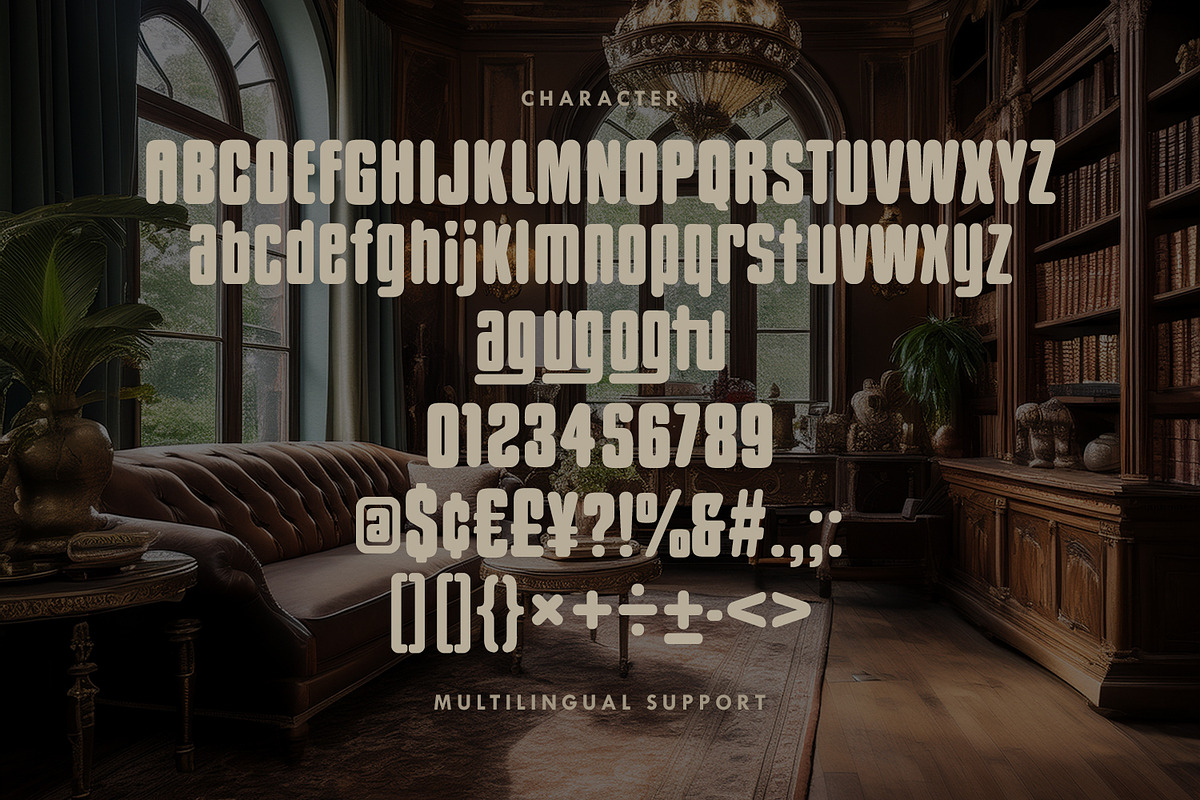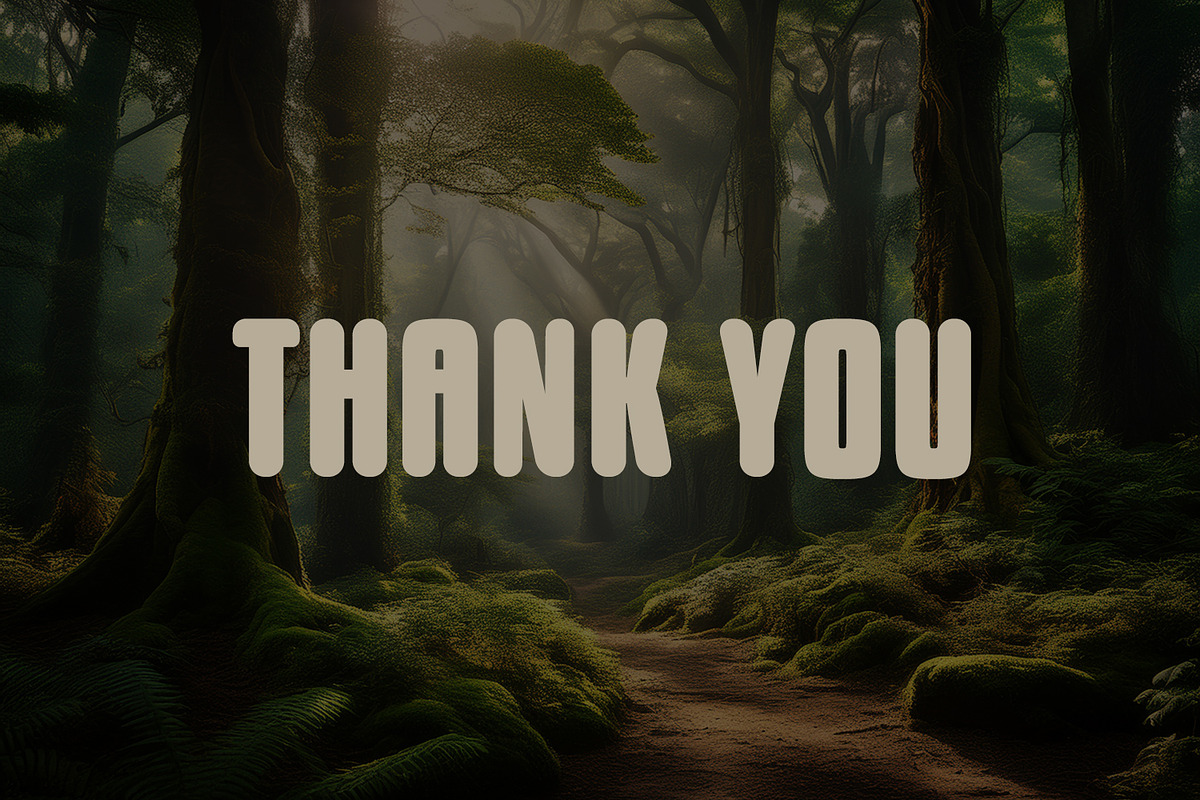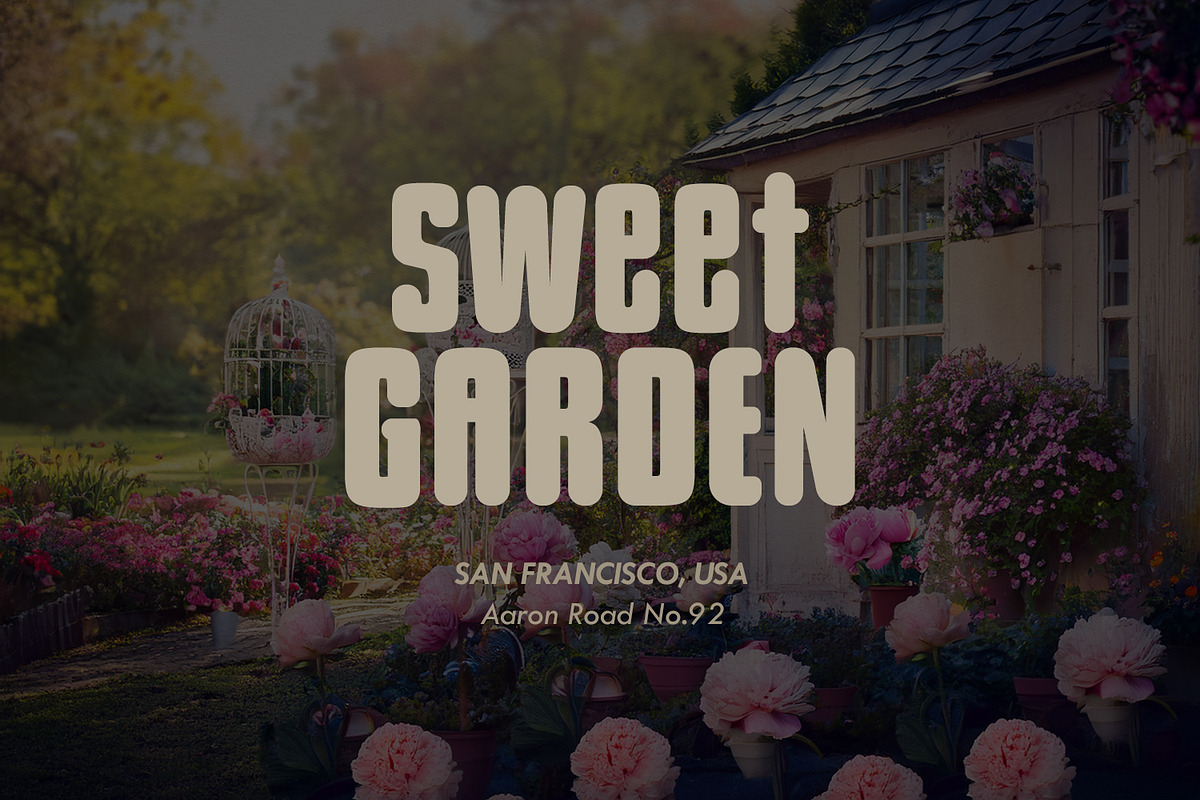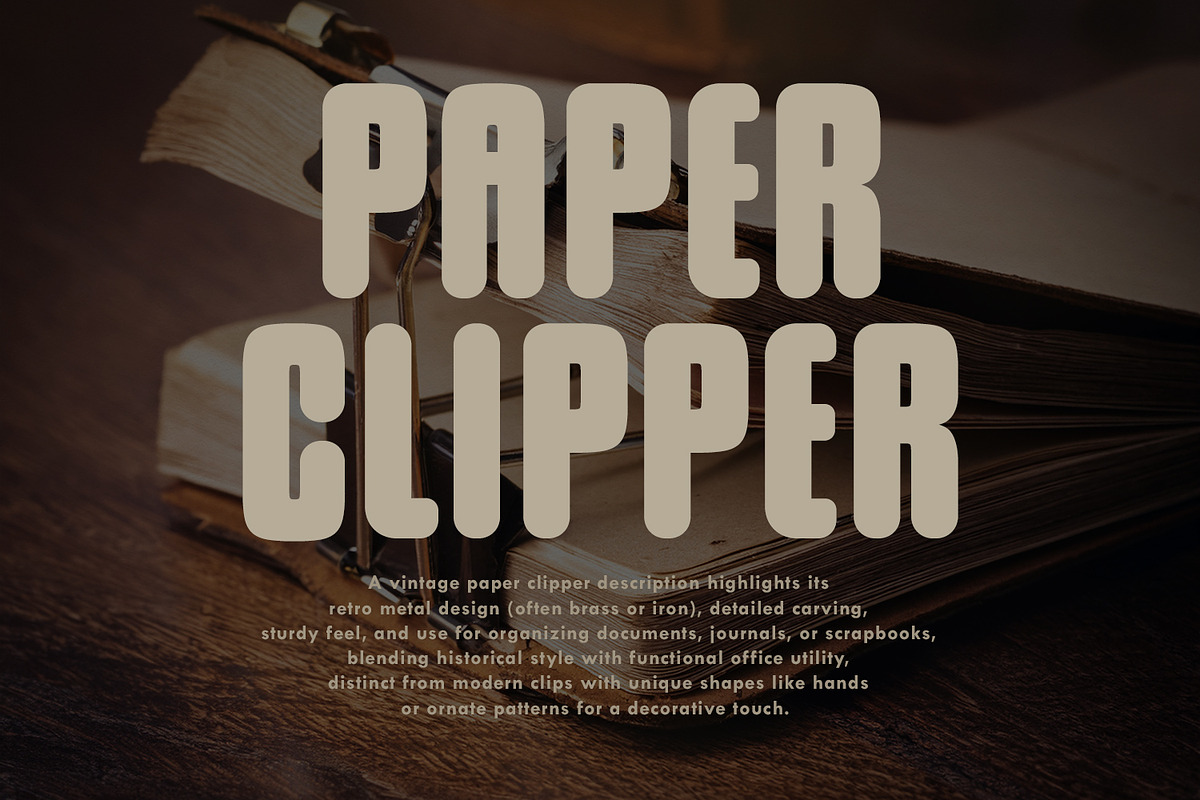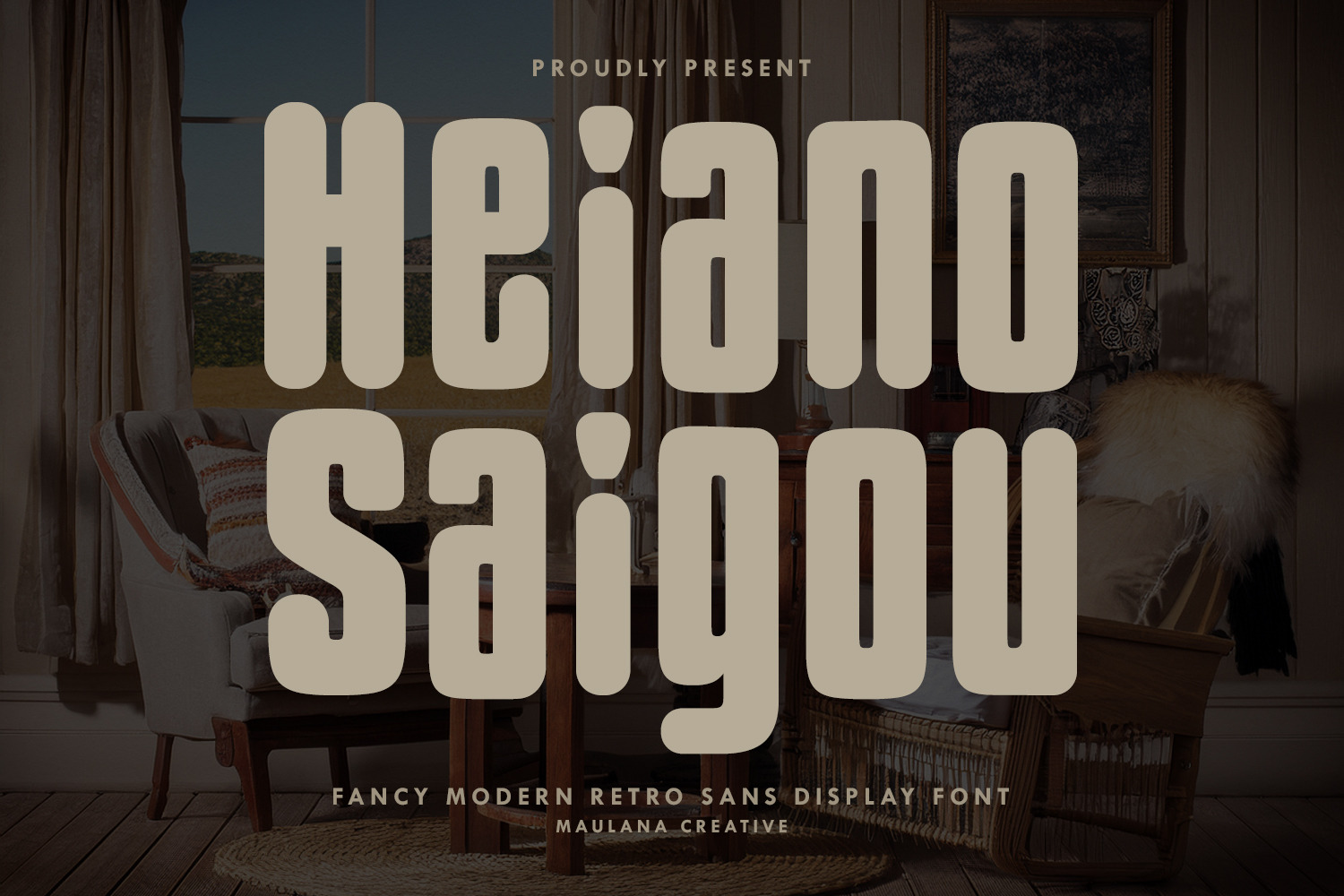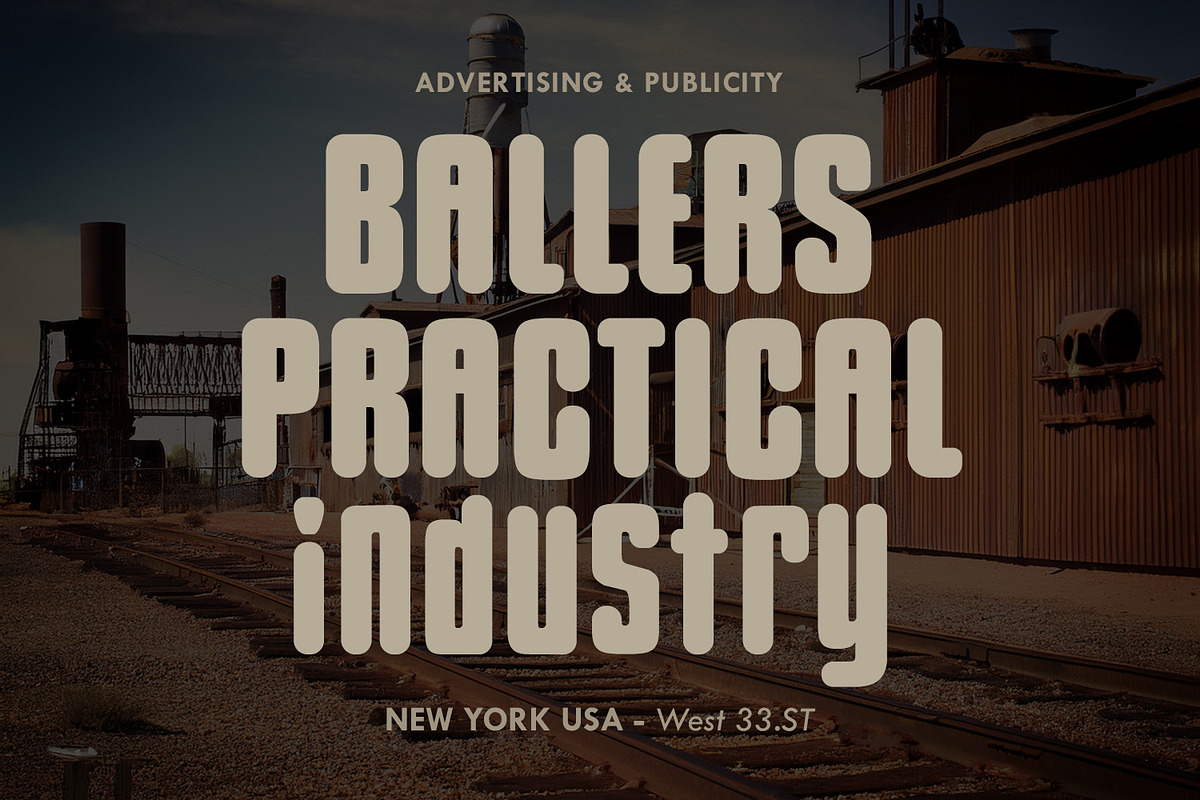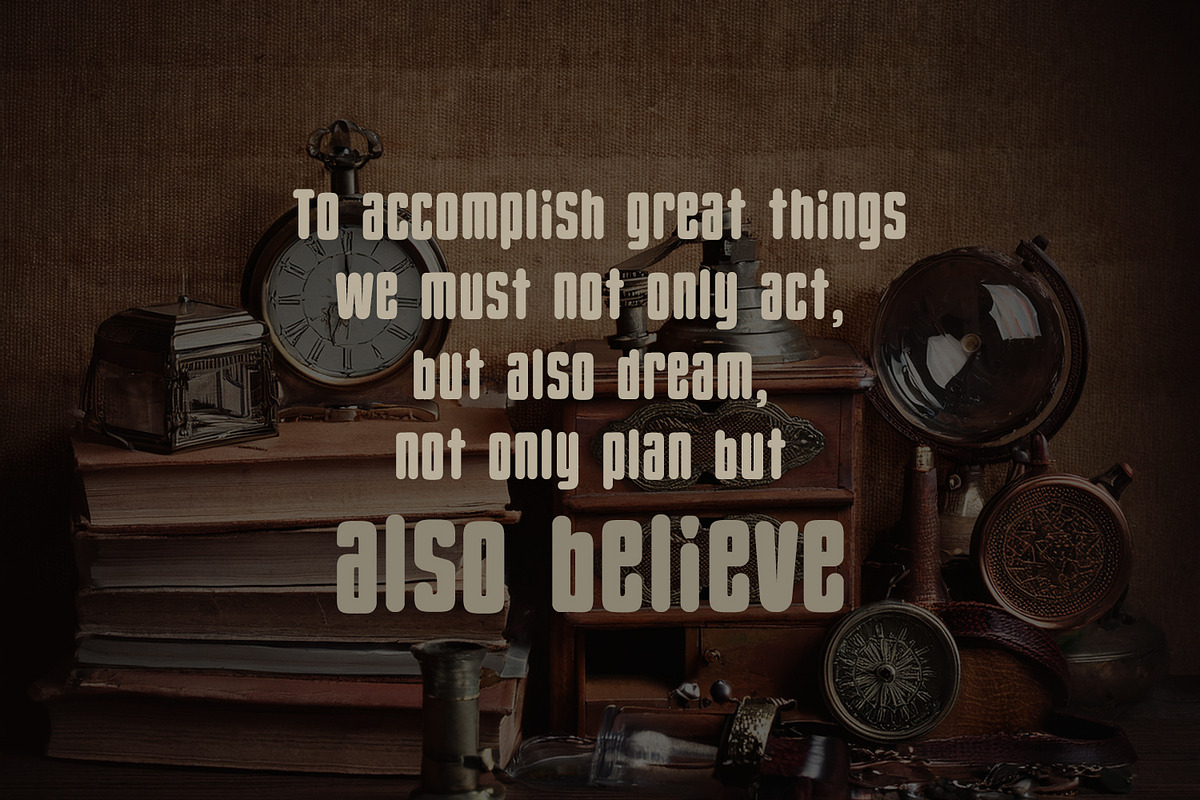
Heiano Saigou Modern Retro Sans Font
Elevate your designs with a touch of nostalgic sophistication!
Heiano Saigou is a fancy modern-retro sans display font that perfectly bridges the gap between classic vintage aesthetics and contemporary clean lines. Featuring a bold, condensed structure with smooth rounded corners, this font is designed to make a powerful statement while maintaining a friendly and approachable vibe.
Whether you are working on industrial branding, chic editorial layouts, or vibrant social media graphics, Heiano Saigou provides the versatility you need. Its unique character shapes—especially in the lowercase descenders—add a custom, hand-lettered feel to any project.
Perfect for: Logos, headlines, vintage posters, product packaging, t-shirt designs, cafe menus, signage, and any project that requires a bold, "modern-meets-retro" personality.